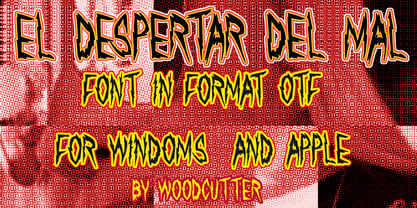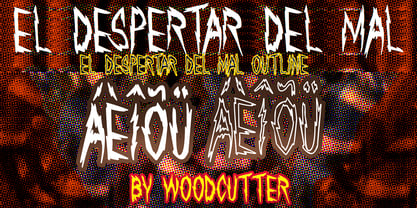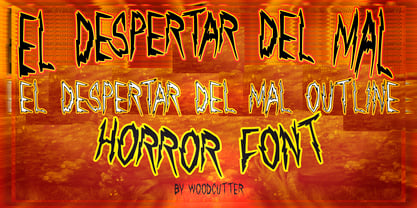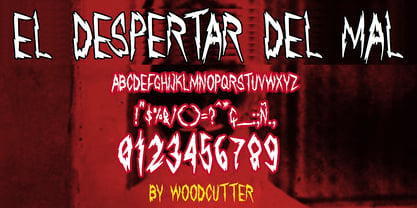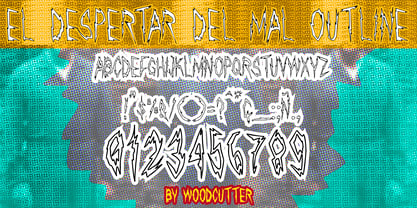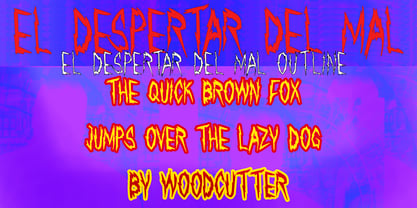
El Despertar Del Mal
by Woodcutter
The El Despertar Del Mal Font Family was designed by Jordi Manero and published by Woodcutter. El Despertar Del Mal contains 2 styles and family package options. More about this family
"El Despertar Del Mal." is a high-impact type family designed to instantly convey threat, violence, and tension. Built entirely in uppercase with full accent support, this typeface draws from a horror-driven aesthetic where each character appears slashed and carved with knives, leaving deep marks that resemble scars. The result is a visually aggressive, unsettling, and highly dramatic set of letterforms. The shapes in "El Despertar Del Mal." are far from clean or uniform: they feature irregular cuts, broken lines, and sharp details that create a strong, textured appearance, as if the letters had been forcefully engraved onto a hard surface. This controlled imperfection adds authenticity and reinforces its brutal character, making it a typeface that communicates danger and darkness at first glance. The family consists of two complementary styles. "El Despertar Del Mal." delivers a solid version, where bold black characters enhance its strength and visual dominance, making it perfect for aggressive headlines and striking compositions. In contrast, "El Despertar Del Mal Outline." presents the same forms in outline only, removing the fill and offering a lighter yet equally disturbing aesthetic, ideal for layered graphics or more experimental visual treatments. This type family is perfect for horror posters, music covers, film titles, video games, and any project where visual violence and tension take center stage.